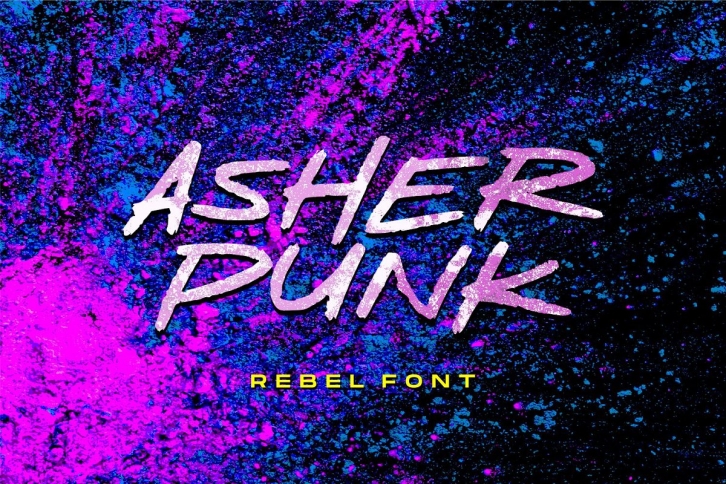
Proudly Present, Asher Punk.
Asher Punk is a Rebel Handwritten Font.
Asher Punk is perfect for product packaging, branding project, megazine, social media, wedding, or just used to express words above the background.